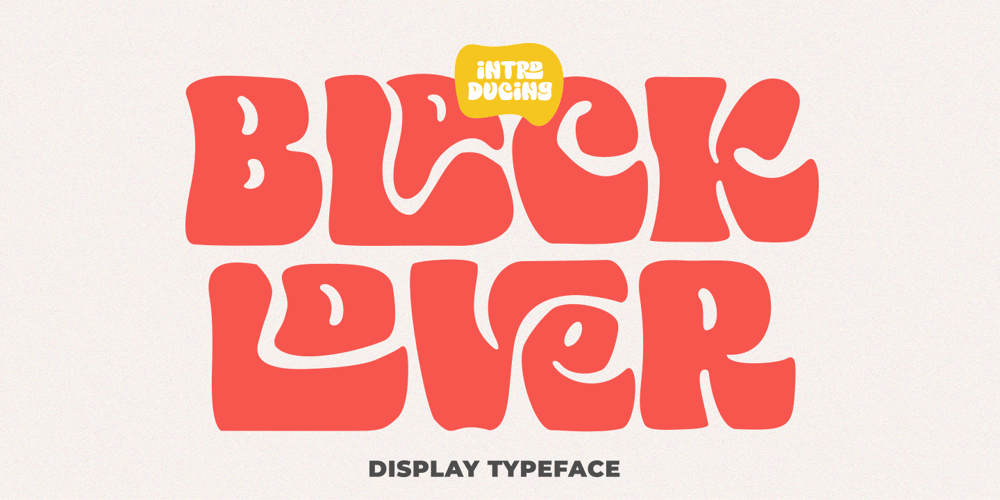
Black Lover Font Family was designed by Doni Purwoko and published by Zeenesia Studio. Black Lover contains 1 styles and family package options. Have a great day! My new font was present, Black Rover!!Black Rover is a Bold vintage style serif font with strong character and soft features. modern and classic font with a unique and bold look. It’s a very versatile font that works great in large. Black Rover was built with openType features, Many Ligature makes your project will be awesome!!Perfect for editorial projects, Logo design, web font, clothing branding, product packaging, magazine headers, or simply as a stylish text overlay to any background image.